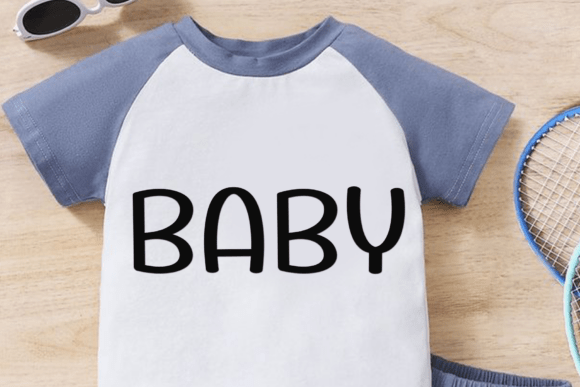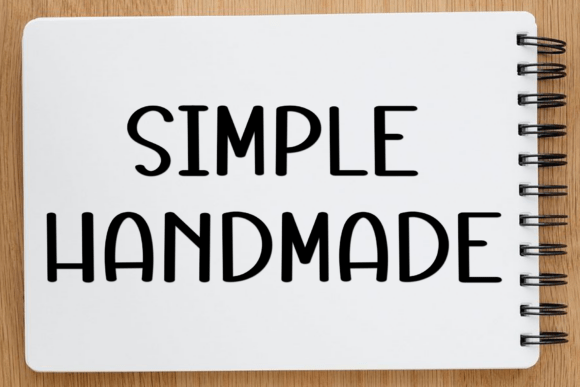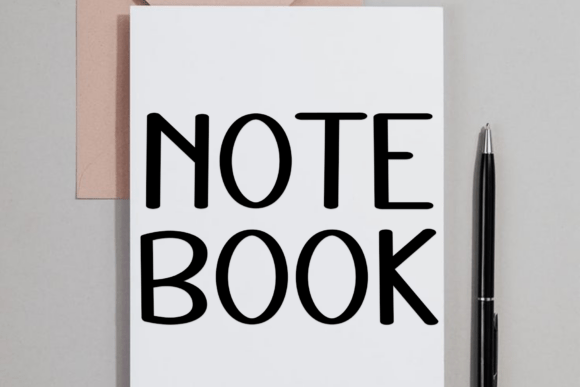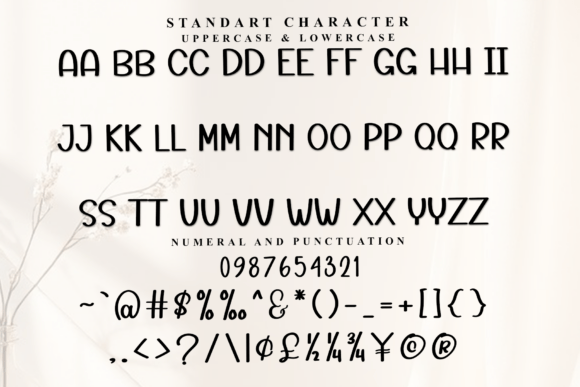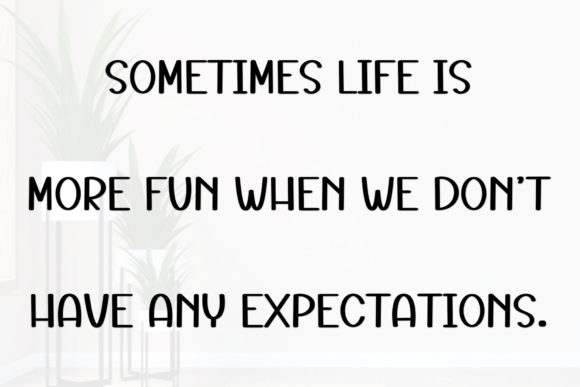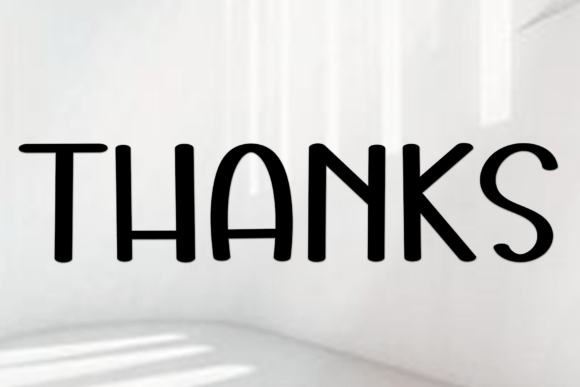
Introduction to Mama Charm Font
Have you ever found yourself scrolling through your favorite design inspiration boards, feeling stuck and uninspired by the same old fonts? I know I have. That’s why I was thrilled to stumble upon the Mama Charm Font, a game-changing addition to any creative project.
With its soft, unique strokes and distinctive character, the Mama Charm Font adds a touch of personality to even the most mundane designs. Whether you’re a seasoned designer or a crafty enthusiast, this high-quality font is sure to elevate your work and make it stand out from the crowd. And the best part? It’s available for free download, making it a valuable resource for any creative endeavor.
As a design enthusiast, I can attest to the value of having a versatile and reliable font like Mama Charm Font in your toolkit. Whether you’re working on a commercial project or a personal craft, this font is sure to provide a beautiful and eye-catching element that will make your work shine.
Key Features of Mama Charm Font
- High-quality design for creative projects, suitable for various design resources.
- Unique, hand-drawn style with a transparent background, allowing for easy customization.
- Designed with a resolution of 300 DPI, ensuring crisp and clear display on various devices and print materials.
- Perfect for use in design projects that require a touch of elegance and sophistication, such as branding, invitations, and editorial content.
Honest Review: Mama Charm Font
I recently had the chance to work with the Mama Charm Font, and I must say it’s been a pleasant experience. This free download is a great design resource for any creative project that requires a touch of elegance.
- High-quality typography: The Mama Charm Font is crisp and clear, making it perfect for various design applications.
- Transparent background: The font’s transparent background makes it easy to layer over other design elements.
- Unique style: The Mama Charm Font has a distinctive charm that sets it apart from other fonts.
- Limited character set: The font’s character set is not extensive, which may limit its use in certain projects.
- No bold or italic options: While the font’s regular style is beautiful, it would be great to have bold and italic options for added versatility.
Overall, I’m impressed with the Mama Charm Font. Its high quality, free download, and unique style make it a great addition to any designer’s toolkit. While it may have some limitations, I believe it’s a valuable design resource worth exploring.
Tips for Getting the Most Out of Mama Charm Font
To get the most out of Mama Charm Font, experiment with different font sizes, styles, and combinations. Use the font in conjunction with other design elements to create visually appealing graphics and designs.
Common Use Cases for Mama Charm Font
Mama Charm Font is ideal for use in a variety of creative projects, including graphic design, digital art, and print materials. Its high-quality design and transparent background make it a versatile resource for designers and artists.